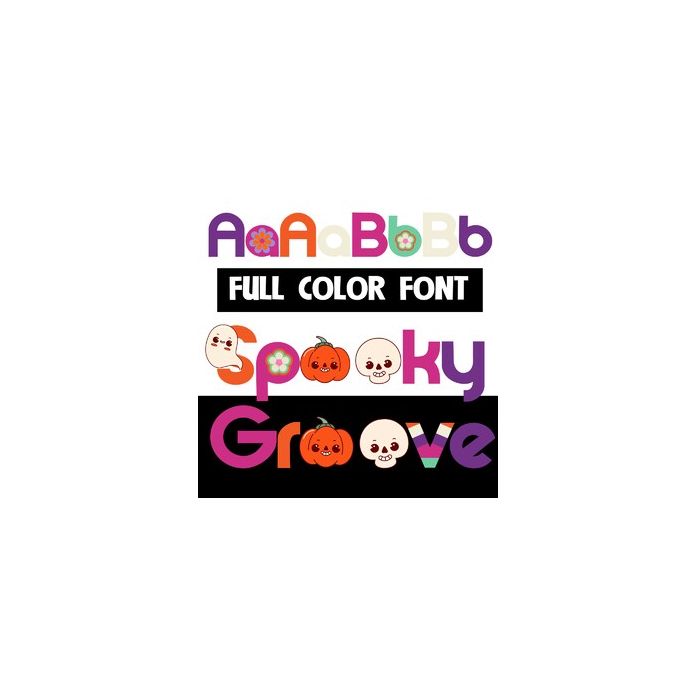
This full-color font features retro colors, flowers, skulls, and pumpkins. There is an alt version upper and lowercase that you can access through Silhouette's glyph map.